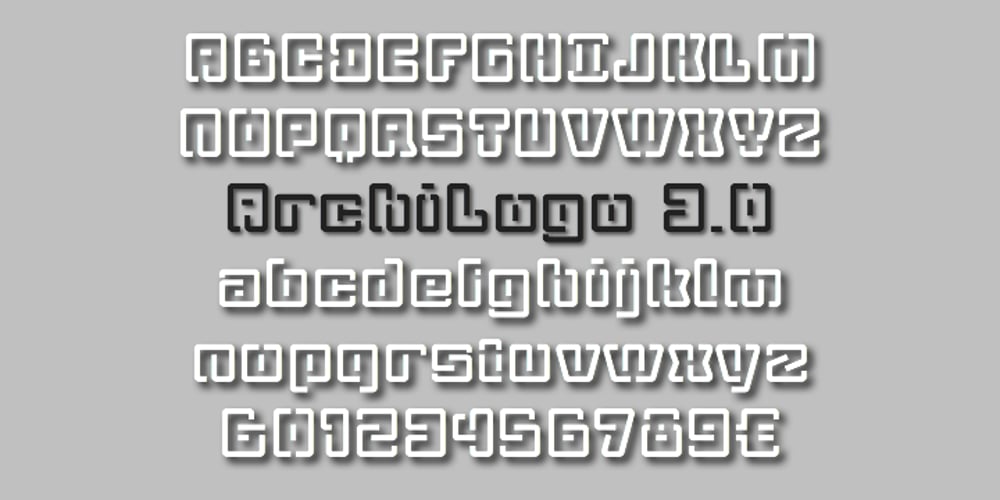
ArchiLogo Font Family was designed by Wico Valk and published by Archiness. ArchiLogo contains 2 styles and family package options. ArchiLogo is not a regular outline-font. It has a stencil element to it and it’s a kind of indirect, because the font is basically the space between the lines. You have to read between the lines, so to speak. It’s like one of the key elements in architecture: the space between the walls. Here’s where type design meets architecture! The new version, ArchiLogo 3.0, has been improved slightly and 13 glyphs have been added to a total of 85 characters. It is still a free font. Because of the popularity of this font I decided to introduce ArchiLogo Pro. Indeed, the pro version of ArchiLogo. Besides the basic Macintosh Character Set the supported languages are Latin 1, Latin 2: Eastern Europe, Turkish, Windows Baltic. It grew to over 300 glyphs.